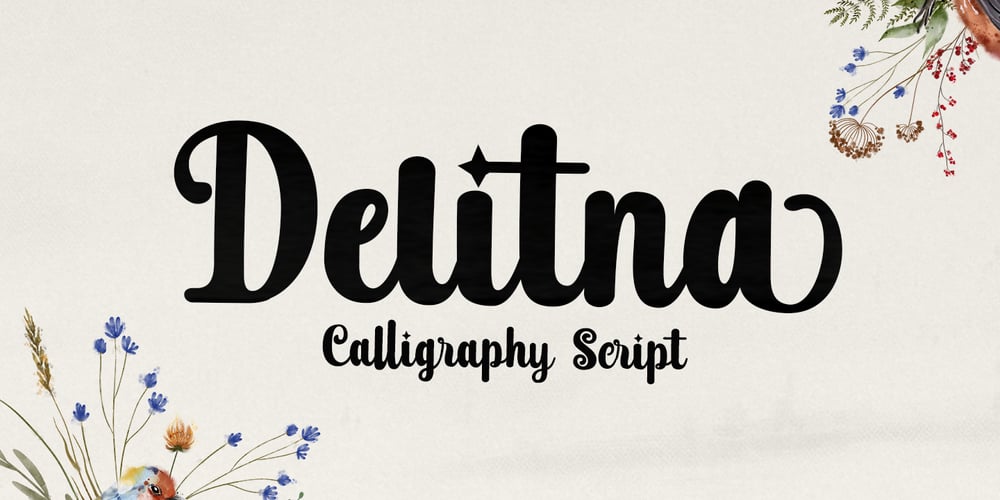
Delitna
Delitna font
Delitna Font Family was designed by Bustami Harun and published by Genesislab. Delitna contains 1 styles and family package options. Delitna is an elegant and beautiful script font with a charming character model. Suitable for creating classy, ​​charming designs in fresh letter shapes. The bold character with love in capital letters can give an elegant and stylish effect when you create your design doodles, you can easily use it for classy looking design projects right now.Get it here enjoy!